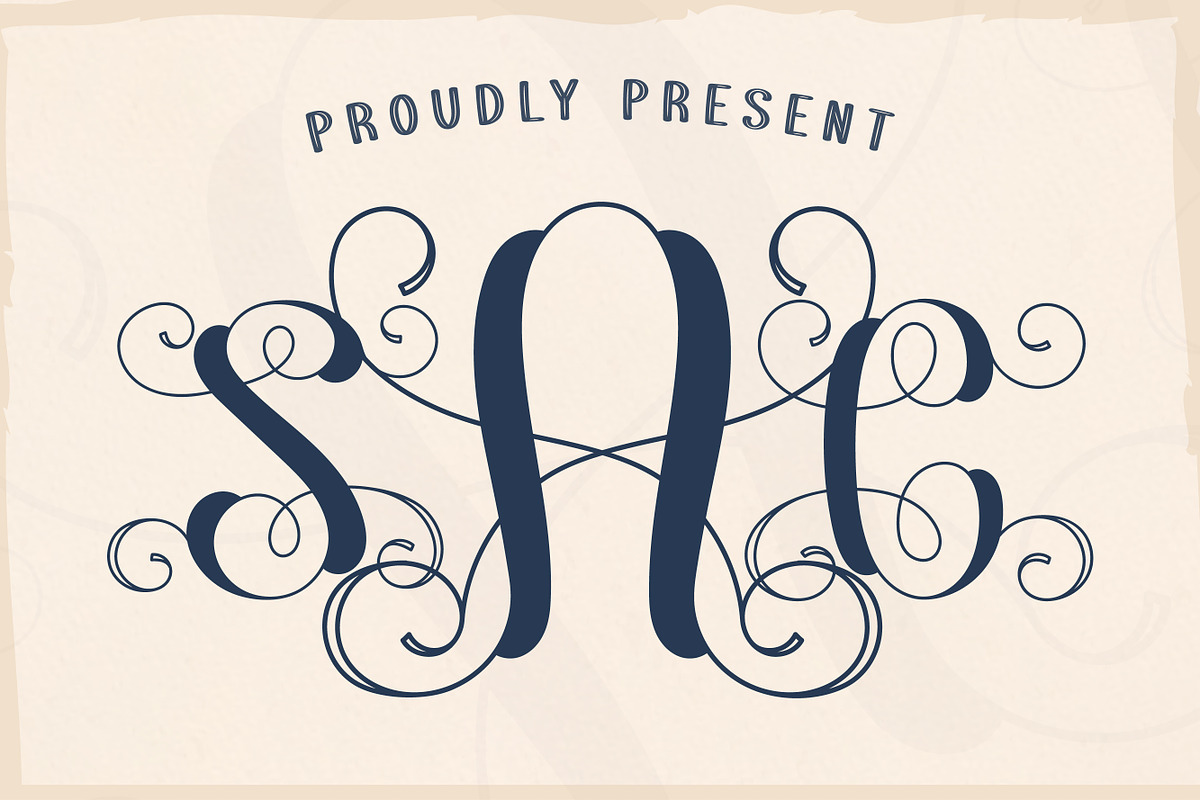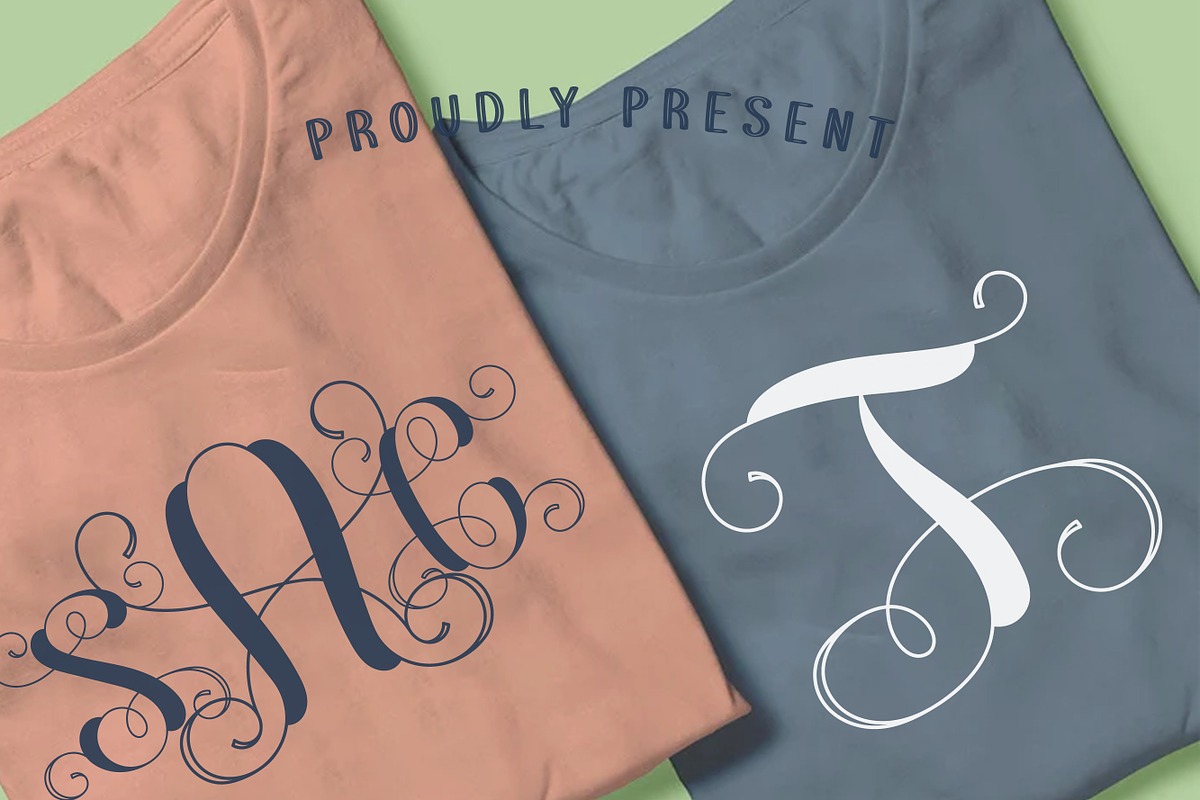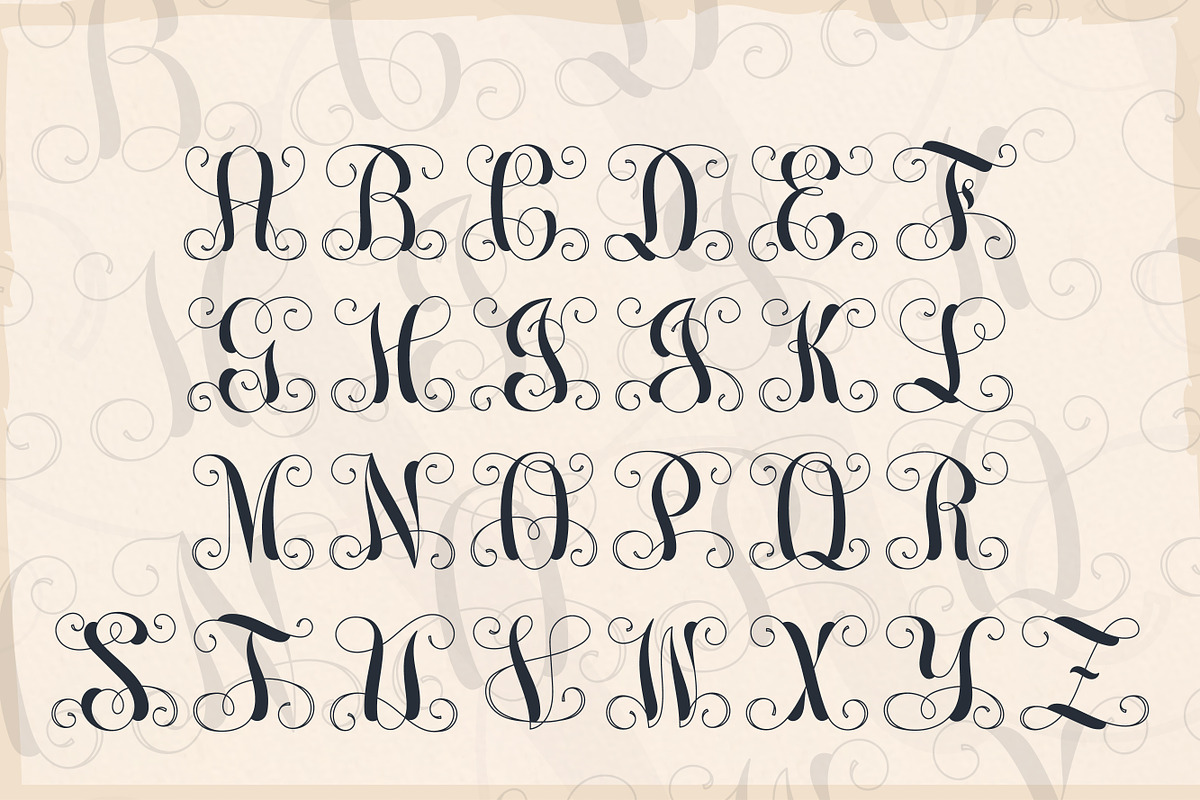
Inerlocking Vine
Inerlocking Vine Monogram is a stylish and eye-catching clean vine font perfect for creative projects. Its unique design adds a touch of elegance and uniqueness to any design or craft idea.